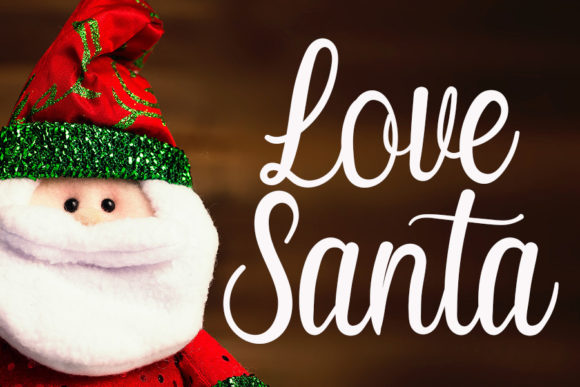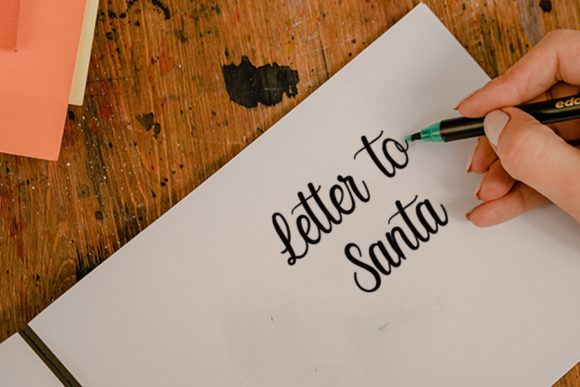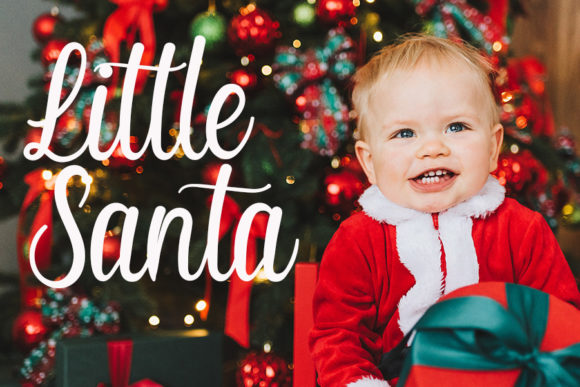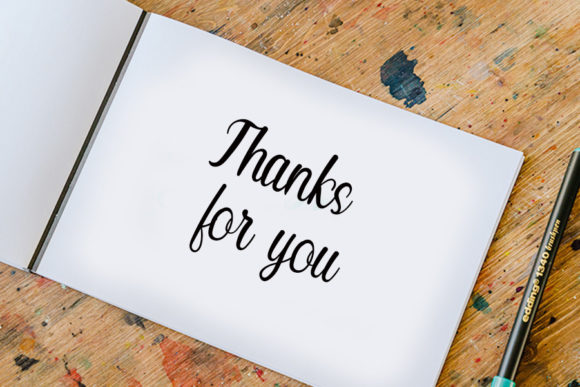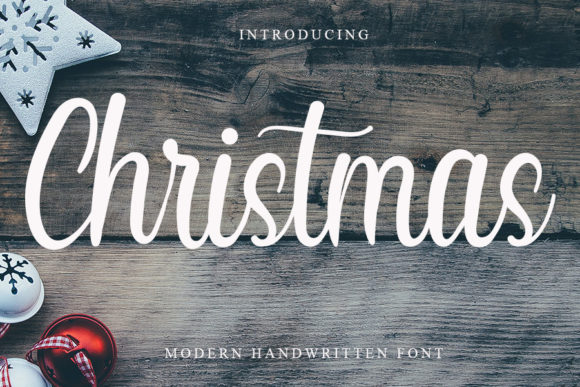
Introducing Christmas Font: The Perfect Addition to Your Holiday Designs
Are you looking for a font that captures the essence of the holiday season? Look no further than Christmas Font, a trendy and cursive handwritten font that is sure to add a lovely touch to any design project. With its neat feel and outstanding vibe, Christmas Font is the perfect choice for designers and crafters who want to create beautiful and festive designs.
What is Christmas Font?
Christmas Font is a unique and stylish font that is specifically designed to evoke the spirit of the holiday season. Its cursive and handwritten style gives it a personal and intimate feel, making it perfect for use in a variety of design projects, from holiday cards and invitations to festive posters and social media graphics.
Key Features of Christmas Font
- Trendy and Cursive Design: Christmas Font features a modern and cursive design that is sure to make your designs stand out.
- Handwritten Style: The font’s handwritten style gives it a personal and intimate feel, making it perfect for use in holiday cards, invitations, and other personal designs.
- Neat Feel: Despite its cursive and handwritten style, Christmas Font has a neat and tidy feel that makes it easy to read and use in a variety of design projects.
- Outstanding Vibe: The font’s unique and stylish design gives it an outstanding vibe that is sure to make your designs shine.
Uses for Christmas Font
Christmas Font is a versatile font that can be used in a variety of design projects, including:
- Holiday Cards and Invitations: Use Christmas Font to create beautiful and festive holiday cards and invitations that are sure to impress.
- Festive Posters and Graphics: Add a touch of holiday cheer to your posters and graphics with Christmas Font.
- Social Media Graphics: Use Christmas Font to create festive and engaging social media graphics that are sure to get noticed.
- Crafting and Scrapbooking: Christmas Font is also perfect for use in crafting and scrapbooking projects, such as holiday-themed scrapbook pages and paper crafts.
Why Choose Christmas Font?
There are many fonts to choose from, but Christmas Font stands out from the rest for several reasons:
- Unique and Stylish Design: Christmas Font features a unique and stylish design that is sure to make your designs stand out.
- Easy to Read: Despite its cursive and handwritten style, Christmas Font is easy to read and use in a variety of design projects.
- Versatile: Christmas Font can be used in a variety of design projects, from holiday cards and invitations to festive posters and social media graphics.
Tips for Using Christmas Font
Here are a few tips for using Christmas Font in your design projects:
- Use it Sparingly: While Christmas Font is a beautiful font, it can be overwhelming if used too much. Use it sparingly to add a touch of holiday cheer to your designs.
- Pair it with Other Fonts: Christmas Font pairs well with other fonts, such as bold and sans-serif fonts. Experiment with different font combinations to find the perfect look for your design.
- Experiment with Colors: Christmas Font looks great in a variety of colors, from traditional holiday colors like red and green to more modern colors like blue and purple.
Christmas Font is a beautiful and versatile font that is perfect for designers and crafters who want to add a touch of holiday cheer to their designs. With its trendy and cursive design, neat feel, and outstanding vibe, Christmas Font is sure to make your designs shine. Whether you’re creating holiday cards and invitations, festive posters and graphics, or social media graphics, Christmas Font is the perfect choice.